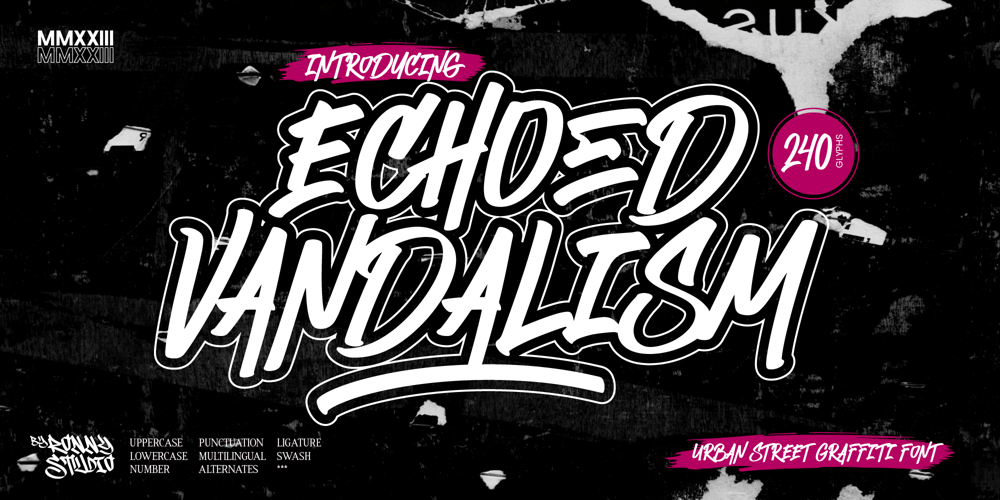
Echoed Vandalism Font Family was designed by Rony Rizki Jaya and published by Ronny Studio. Echoed Vandalism contains 2 styles and family package options. Echoed Vandalism is an urban street graffiti font that combines bold, dynamic, and energetic characteristics typical of street art. Perfect for branding, posters, album covers, or digital content, Echoed Vandalism delivers an authentic and daring touch that embodies the spirit of modern art and creative freedom.